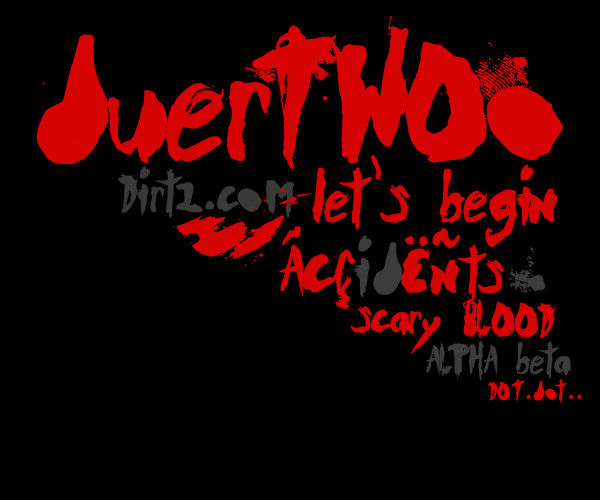
Description: I don't know the exact type of paint I used but it was some sort of metallic red paint since my inventory is sort of low, I mean seriously I used a floss pick to create the lettering and kept poking holes into the paper.
I was going for something with multiple weights, something crazy/splashy and I actually like the outcome. Accents and lots of punctuation (not all punctuation is available) and in place of some punctuation is some grunge textures (finger prints, smudges etc).